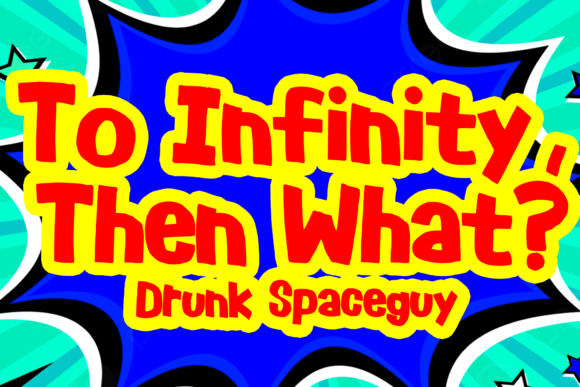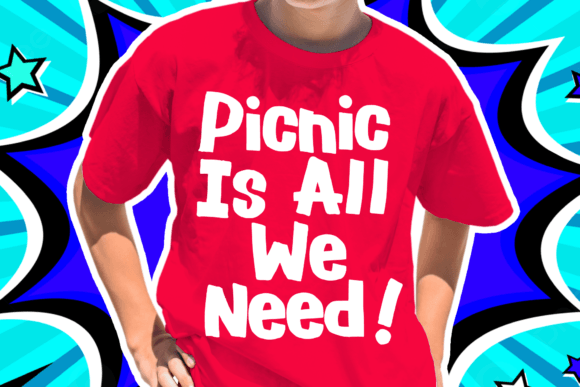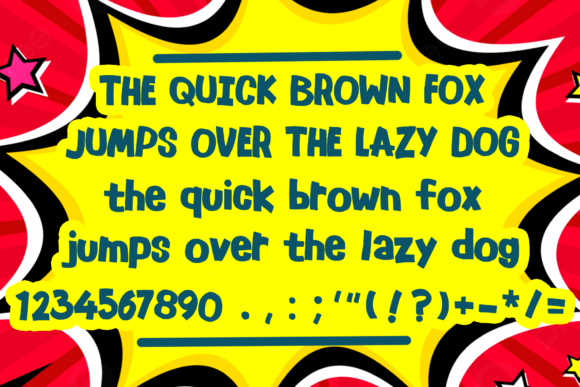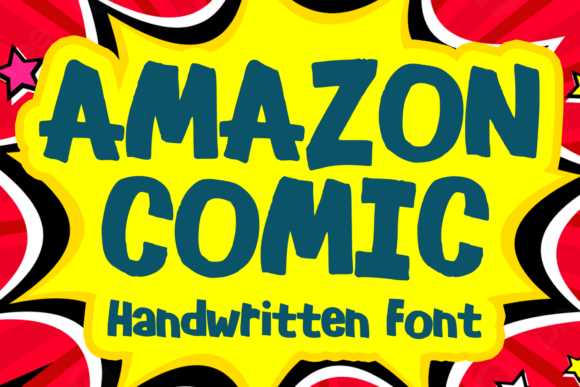
The Amazon Comic Font: A Fun and Versatile Display Font for Your Designs
I’ll never forget the time I was working on a design project for a kids’ book and struggled to find the perfect font. The client wanted something fun, playful, and engaging, but I just couldn’t seem to find the right fit. That’s when I stumbled upon the Amazon Comic font, and it instantly became my go-to choice. In this article, I’ll share my experience with this amazing font, its features, and how to use it to create stunning designs.
My Honest Review of Amazon Comic Font
What I Love About Amazon Comic Font
- ✨ Unique and playful style: The Amazon Comic font has a one-of-a-kind comic-style display look that’s perfect for adding a casual touch to your designs.
- ✅ Versatility: You can use it for a wide range of projects, from t-shirts and kids’ book designs to greeting cards, stickers, and posters.
- 💡 Incredibly easy to read: Despite its playful style, the font is clear and easy to read, making it perfect for body text and headings.
While I absolutely love the Amazon Comic font, there are a few minor quirks to be aware of:
- 🤔 Limited use in formal designs: Due to its playful nature, this font might not be the best choice for formal or professional designs, such as business reports or corporate branding.
- ⚠️ May not work well in small sizes: As with many display fonts, Amazon Comic might not be the best choice for very small text sizes, as it can become difficult to read.
The Story Behind Amazon Comic Font
The Amazon Comic font was designed with the goal of creating a fun, versatile font that’s perfect for a wide range of creative projects. While I couldn’t find any information on the font’s exact origins, it’s clear that the designer aimed to create a font that’s both playful and easy to read.
Q: What type of designs is Amazon Comic font best suited for?
A: Amazon Comic font is perfect for designs that require a playful, casual touch, such as kids’ book designs, greeting cards, stickers, and posters.
Q: Is Amazon Comic font easy to read?
A: Yes, Amazon Comic font is designed to be clear and easy to read, making it perfect for body text and headings.